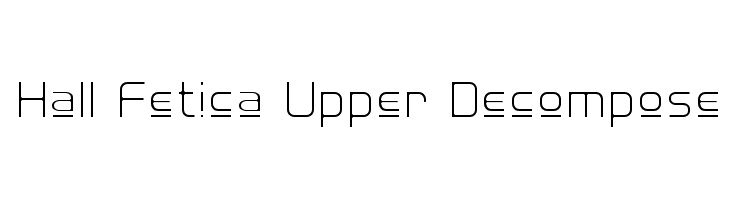
( Fonts by weknow - Wino S Kadir )
A jagged, edgy font with angular, irregular edges for a dynamic look.
Ornate Victorian-inspired decorative ornaments and borders.
( Fonts by www.omniglot.com )
A modular, angular font with geometric and technical styling.
( Fonts by www.omniglot.com )
A bold, angular font with a futuristic and geometric design.
( www.facebook.com/febby.rusdiansyah )
An intricate, geometric font with tribal-inspired patterns.